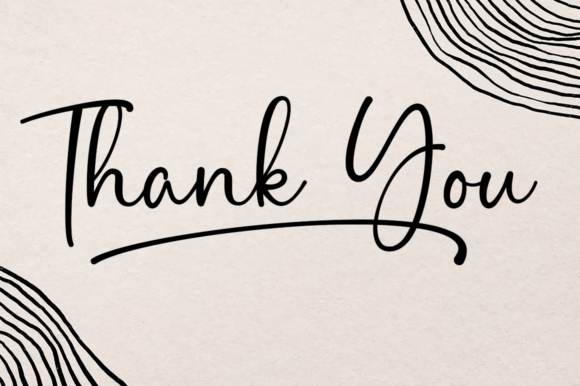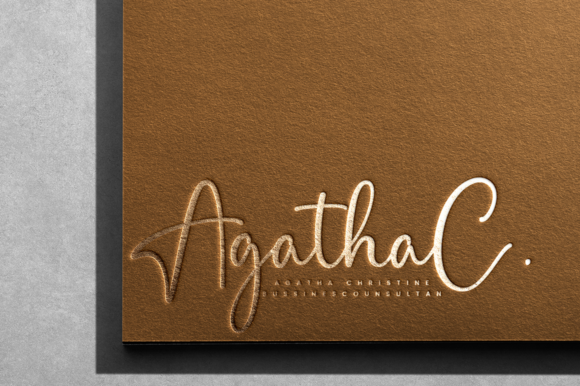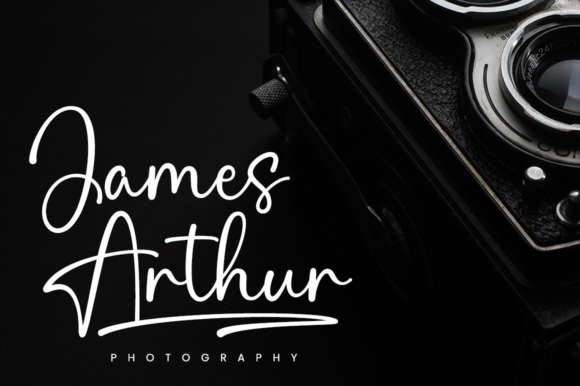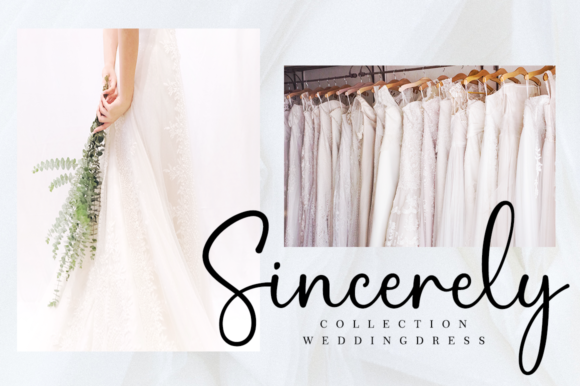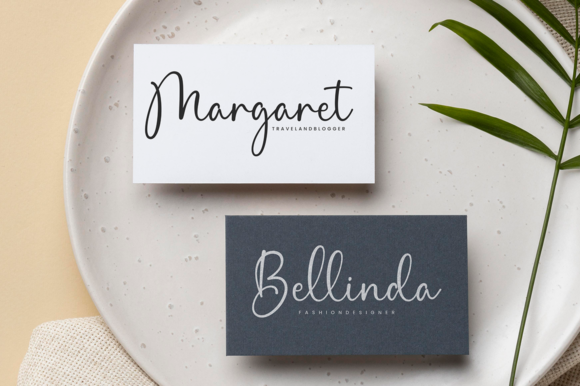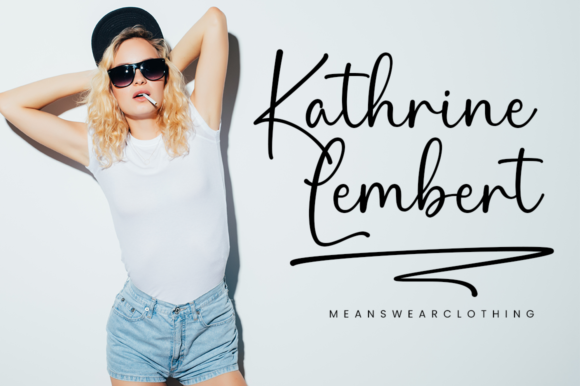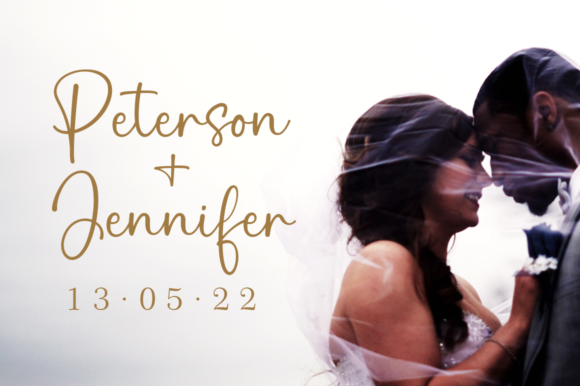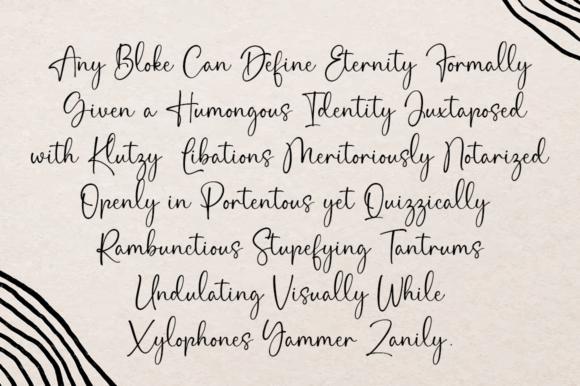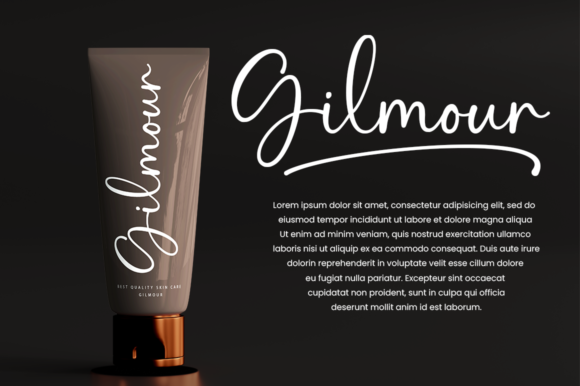
Dreamline Font
About Dreamline Font
Dreamline is a unique and elegant handwritten font. It looks beautiful on a variety of designs requiring a personalized style, such as wedding invitations, thank you cards, weddings, greeting cards, logos and so on.